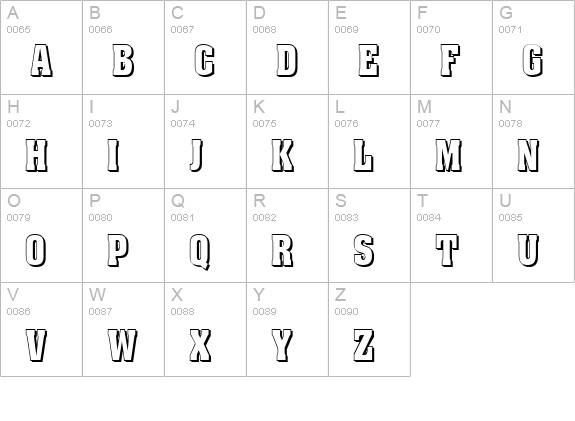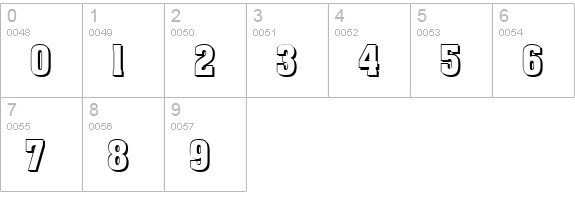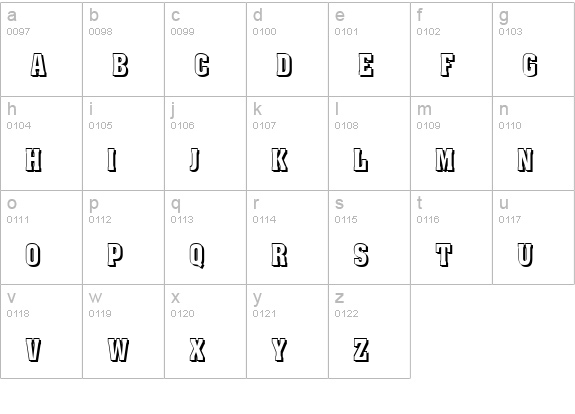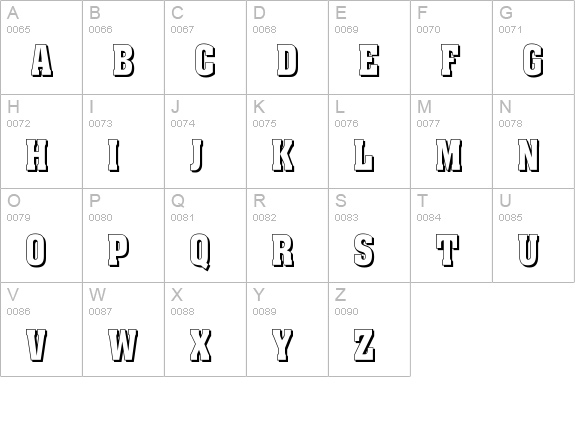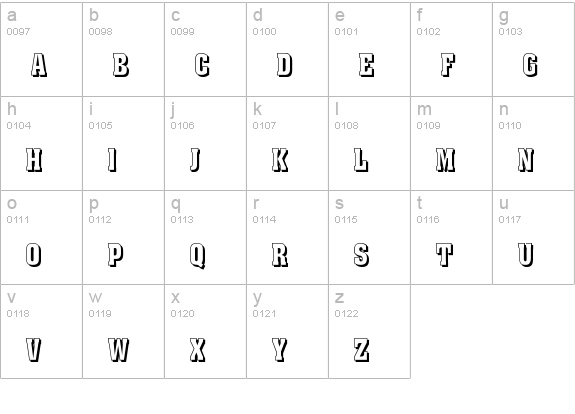
State Shadow Font Details
State Shadow font is a stunning display typeface that exudes a sense of boldness and sophistication. Its unique and eye-catching design makes it perfect for a wide range of creative projects, from logos and branding to headlines and posters. The font features a striking shadow effect that adds depth and dimension, giving your text a dynamic and memorable appearance. With its clean lines and sharp edges, State Shadow font commands attention and leaves a lasting impression. Whether you're designing a sleek and modern website or creating a powerful advertising campaign, this font will effortlessly elevate your work to the next level. One of the best things about State Shadow font is that it is free. Yes, you read that right - this incredible font can be downloaded for free at FontsMarket.com. This means that you can enhance your designs without breaking the bank. So why wait? Head over to FontsMarket.com and get your hands on this amazing font today. Don't miss out on the opportunity to add a touch of elegance and sophistication to your creative projects.